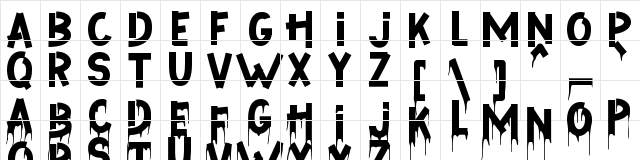
The Halloween Regular Free Font
The Halloween Regular
Designer: Nox Studio 2021
Design Context for The Halloween
The Halloween is a composed and adaptable typeface that performs quietly and consistently across a wide range of design contexts.